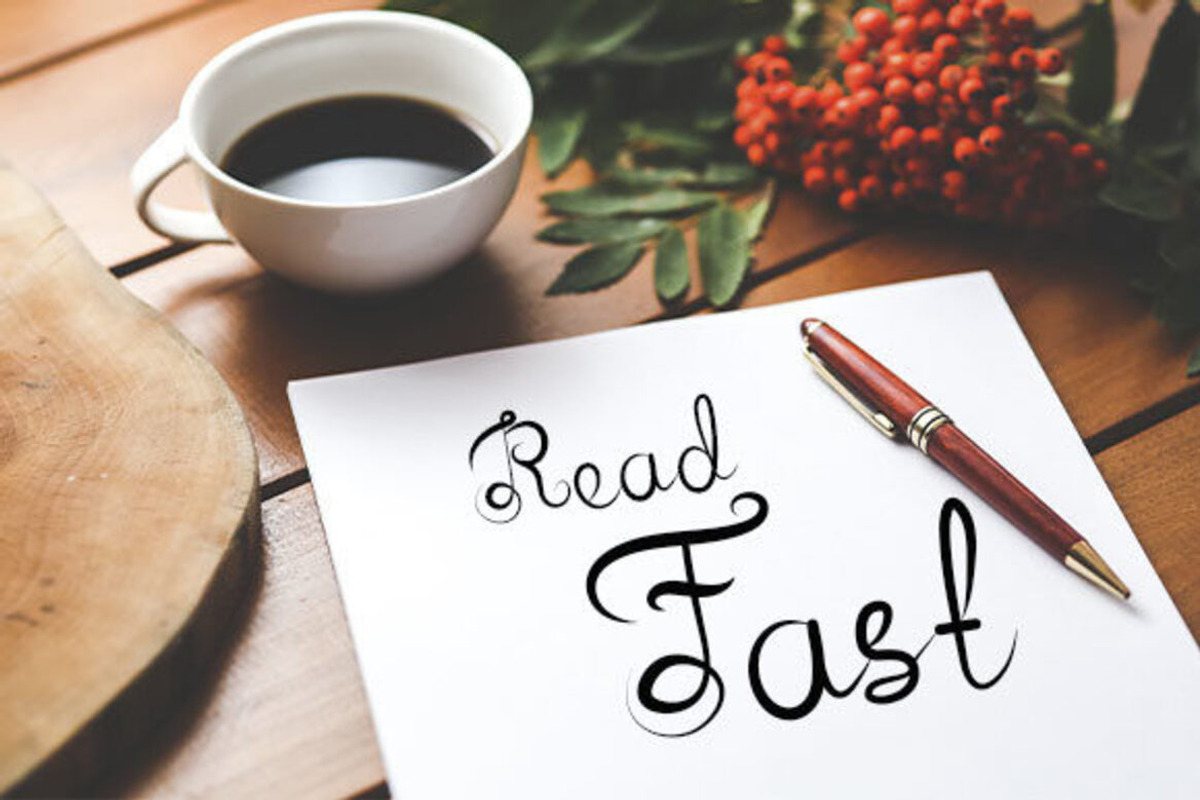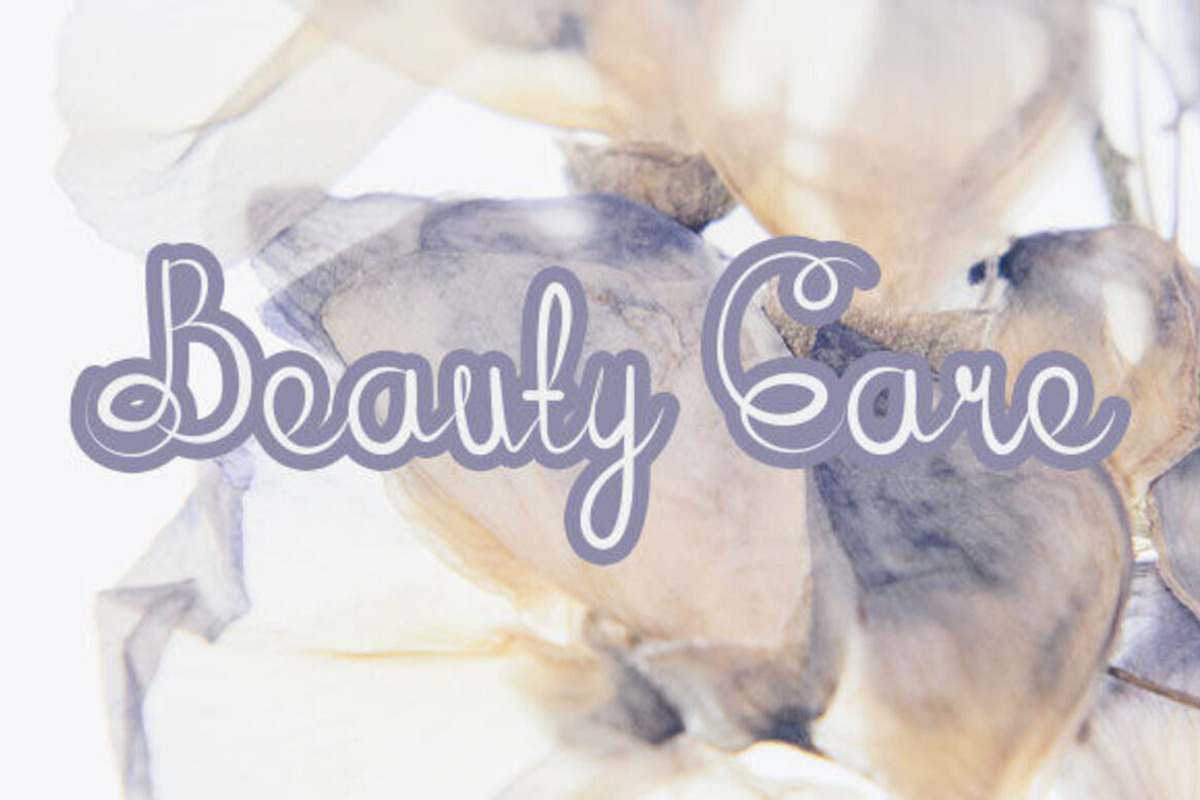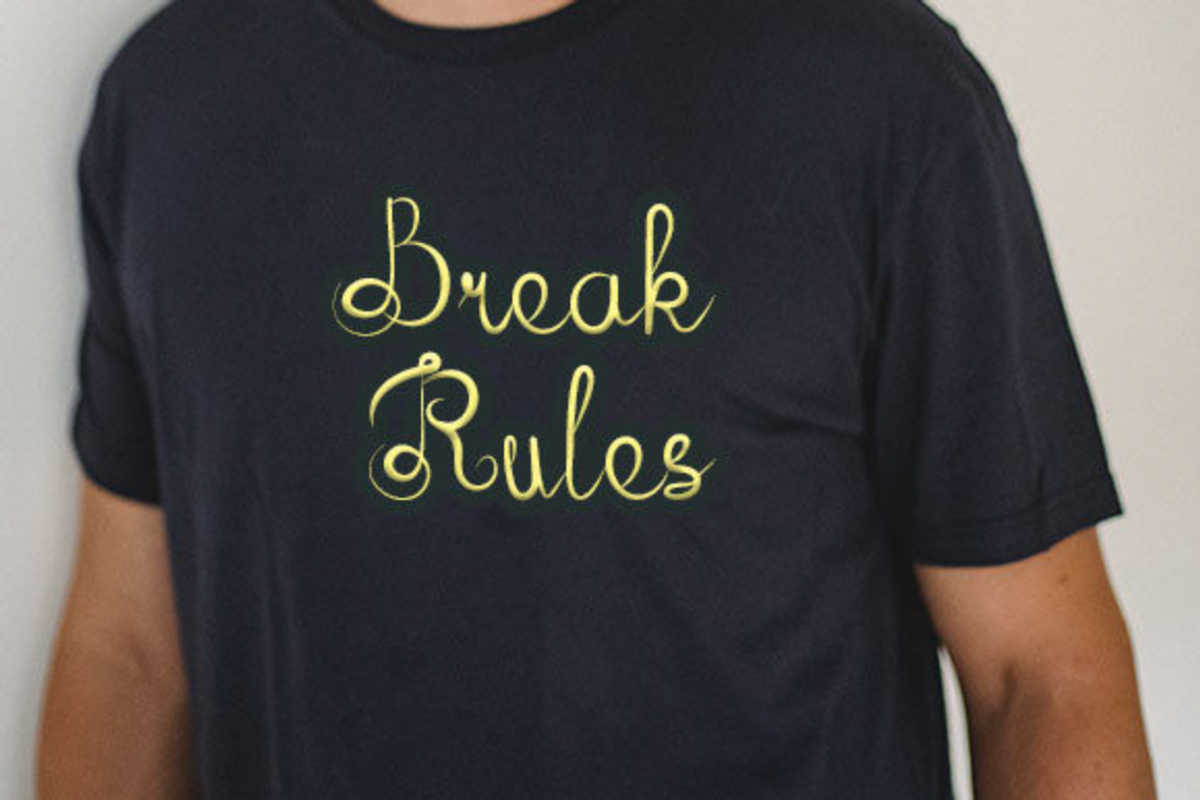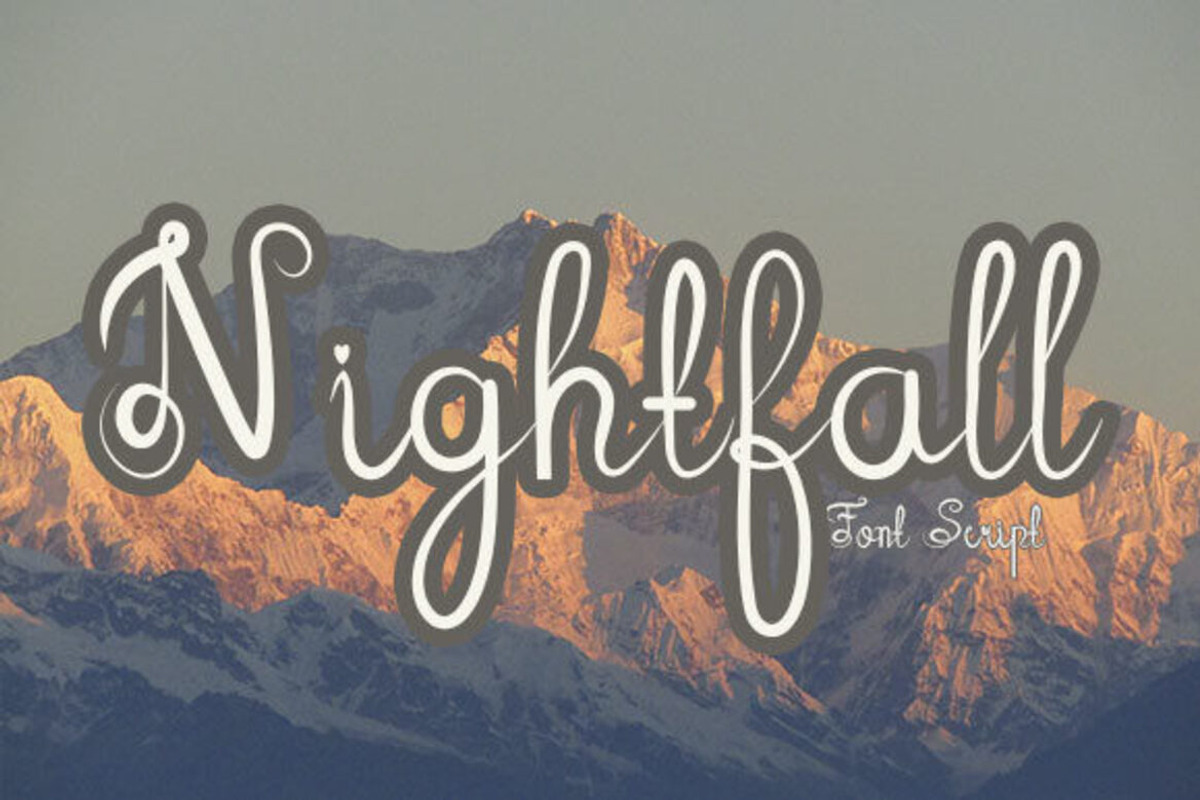
Nightfall
Nightfall Font is a captivating and enigmatic typeface that exudes an aura of mystery and darkness. Inspired by the ethereal beauty of the night sky, this font is a perfect choice for designs seeking to evoke a sense of intrigue and allure.
The letterforms of Nightfall Font are meticulously crafted with elegant and flowing lines, reminiscent of wisps of smoke drifting through the night air. Each character possesses a unique blend of sharp edges and graceful curves, creating a harmonious balance between edginess and sophistication.
With its tall and slender proportions, Nightfall Font commands attention and adds a touch of drama to any project. The generous spacing between letters allows for easy legibility while maintaining a sense of individuality and distinctiveness.
Nightfall Font offers a versatile range of weights, from a delicate and haunting thin style to a bolder and more impactful variant. This diversity allows designers to experiment with various typographic hierarchies and create visually stunning compositions.
Whether used for branding, editorial design, or digital artwork, Nightfall Font captures the essence of nighttime ambiance, allowing text to weave a story of intrigue and enchantment. Its timeless and captivating nature makes it suitable for a wide array of applications, from gothic-inspired designs to contemporary projects seeking a touch of mystique.
Embrace the allure of the night with Nightfall Font and let its enchanting presence elevate your designs to new levels of visual storytelling.